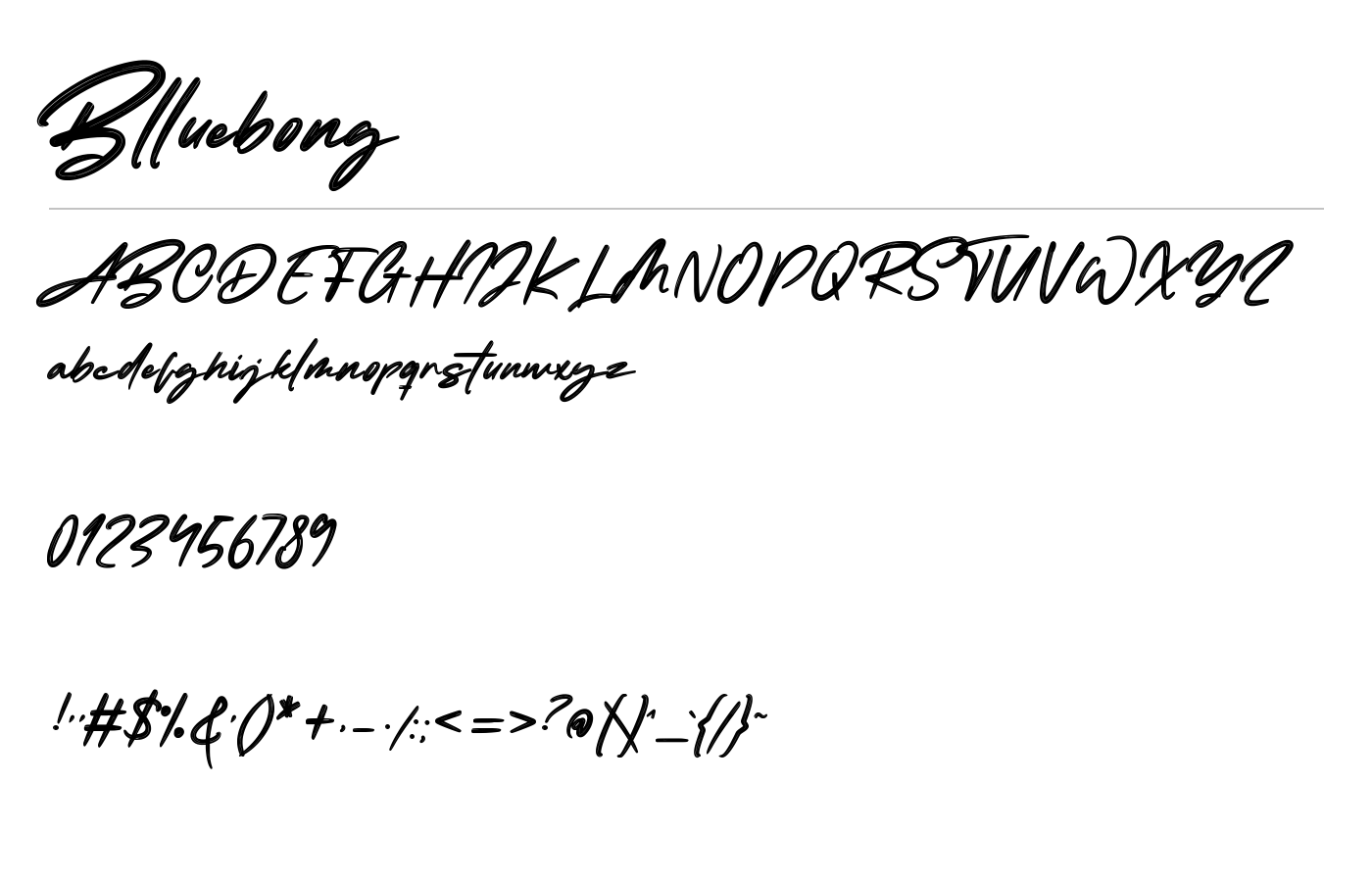
Blluebong is a lively and casual script font with a smooth, handwritten style that brings an energetic and personal touch to any design. Its flowing strokes and moderate contrast create a friendly, approachable feel, making it perfect for branding, logos, invitations, and creative projects that seek a modern, informal vibe. This font works especially well where a natural, stylish script can add warmth and personality.
Blluebong Font
About Blluebong Font